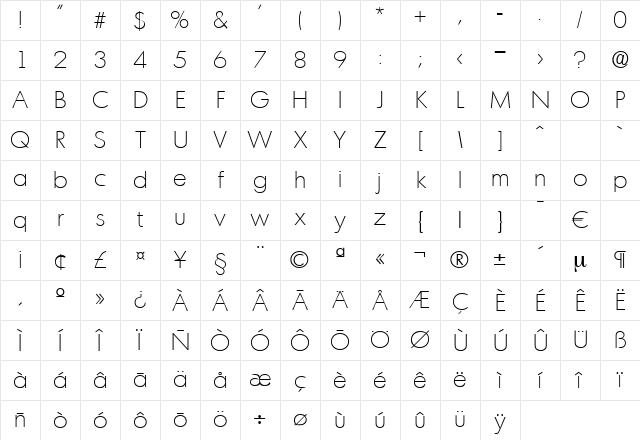
Montreal-Xlight Regular
Design Context for Montreal-Xlight
Montreal-Xlight is a composed and adaptable typeface that performs quietly and consistently across a wide range of design contexts. Its slender proportions lend an understated elegance to any composition.